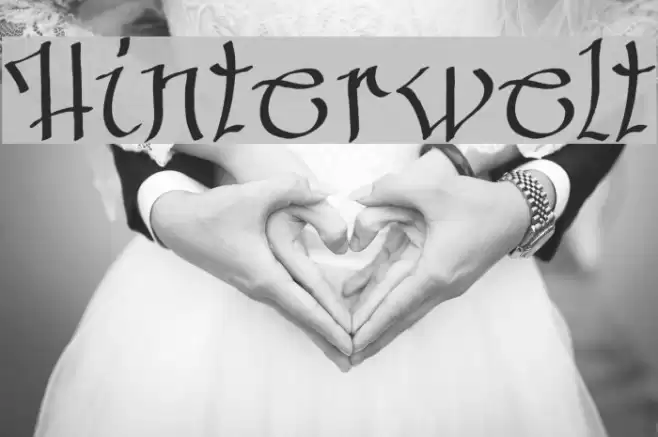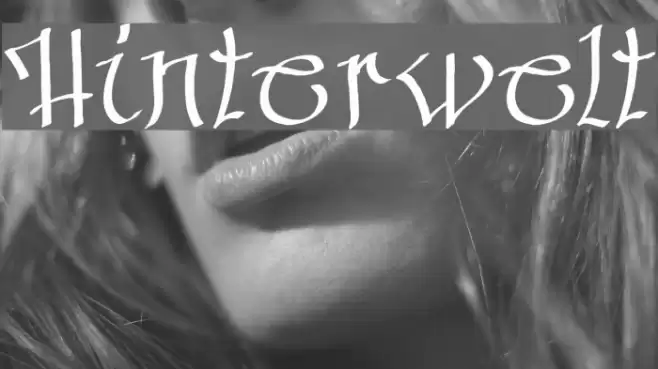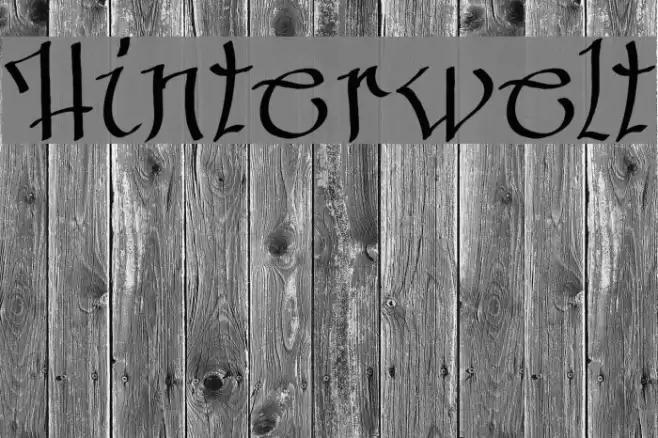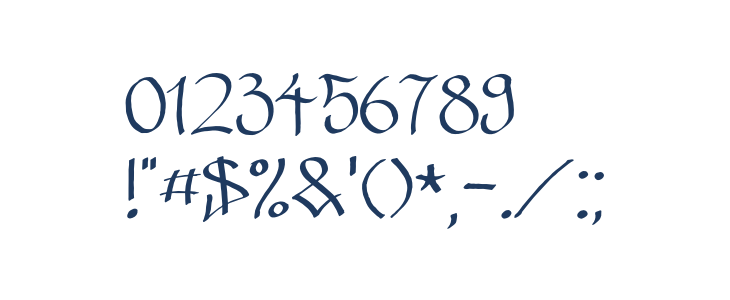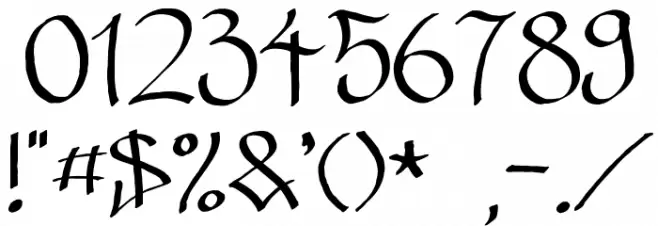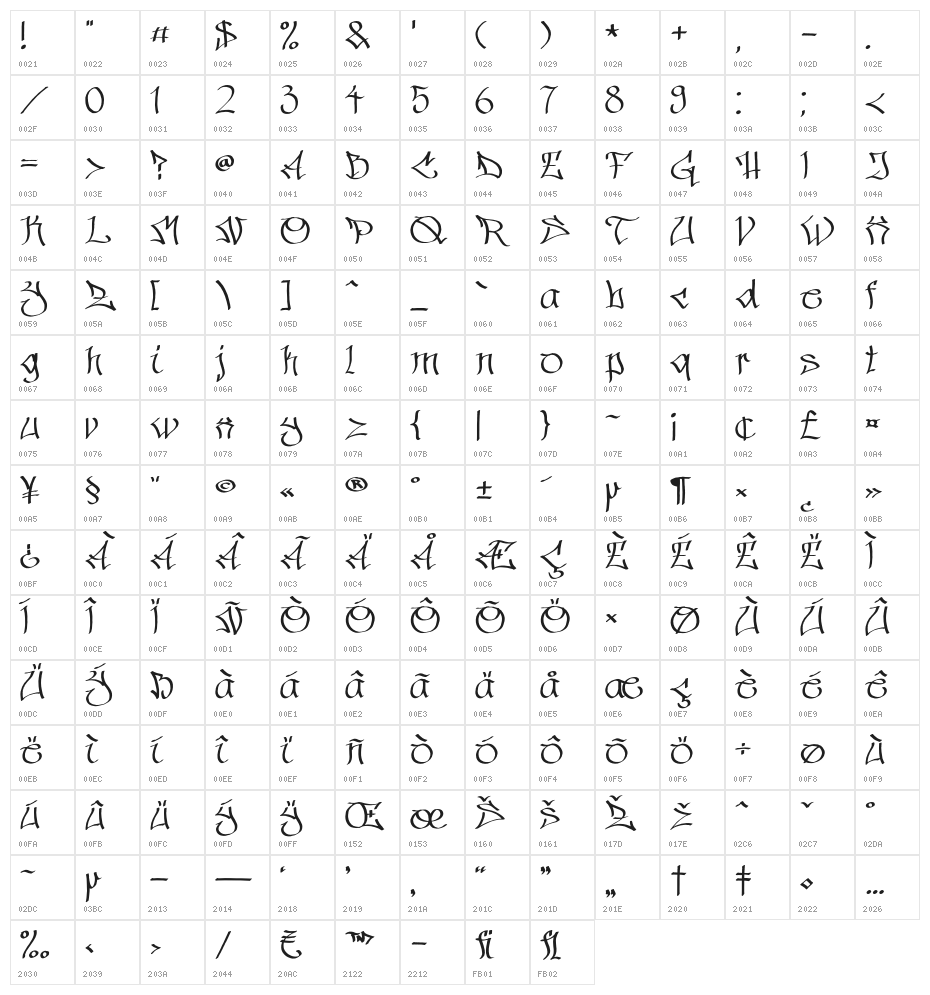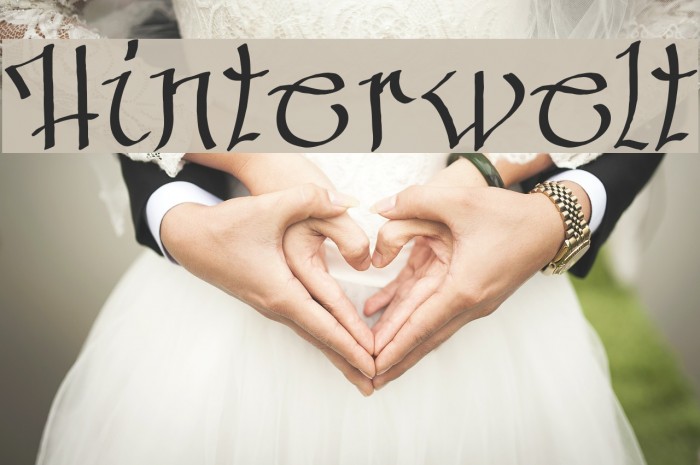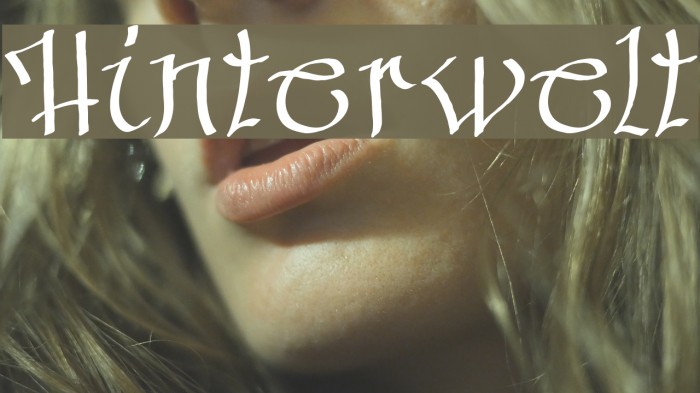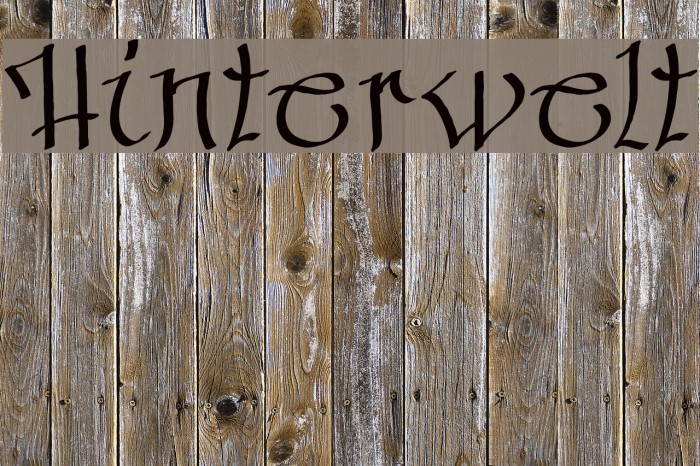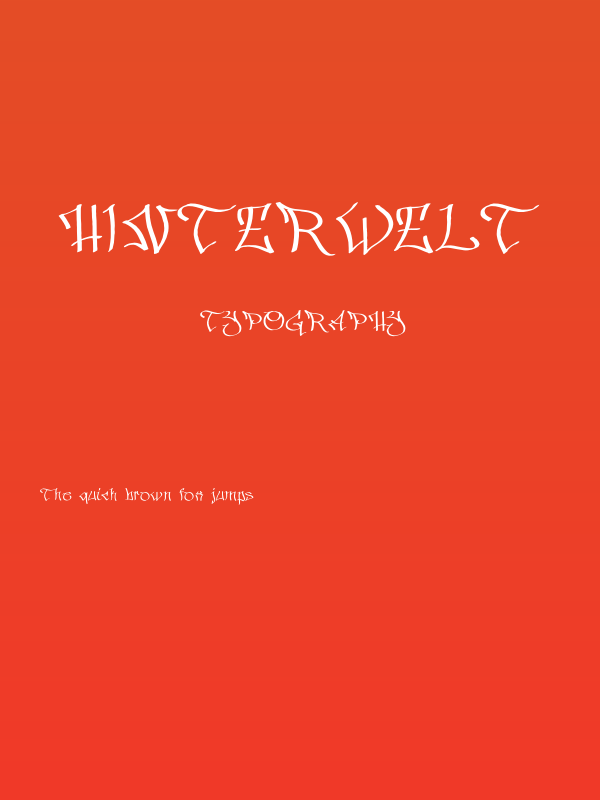
Hinterwelt Font
Hinterwelt Description
This font features a distinctive and artistic style, characterized by its sharp, angular strokes and unique flair. The uppercase letters exhibit a dynamic, almost calligraphic quality, with exaggerated serifs and intricate detailing. The lowercase letters maintain a consistent flow, complementing the uppercase with their slightly curved and elegant forms. Numbers are bold and prominent, ensuring readability while maintaining the font's artistic essence. Special characters are creatively designed, adding to the overall aesthetic appeal. The font's unique style makes it suitable for projects that require a touch of creativity and individuality.
An artistic and angular font with calligraphic influences and bold, dynamic strokes from Graffiti fonts.